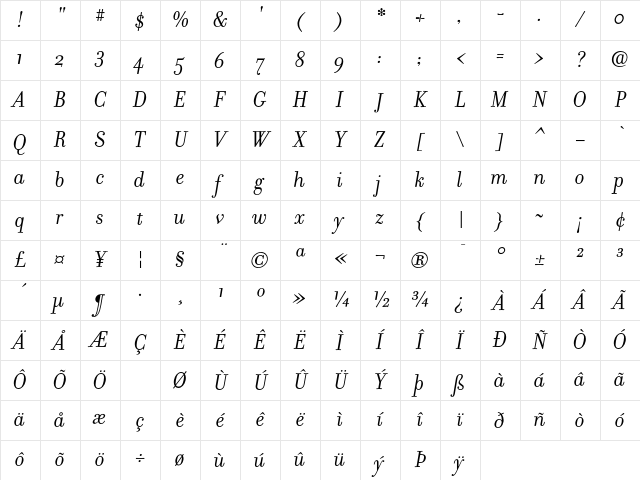
Filosofia RomanItalic Free Font
Filosofia RomanItalic
Style: RomanItalic
Design Context for Filosofia
Filosofia is a composed and adaptable typeface that performs quietly and consistently across a wide range of design contexts. The slanted form adds forward momentum and visual energy.
Pro Tip: Use Filosofia for emphasis, pull quotes, and subheadings where its slanted energy can add rhythm to the layout.